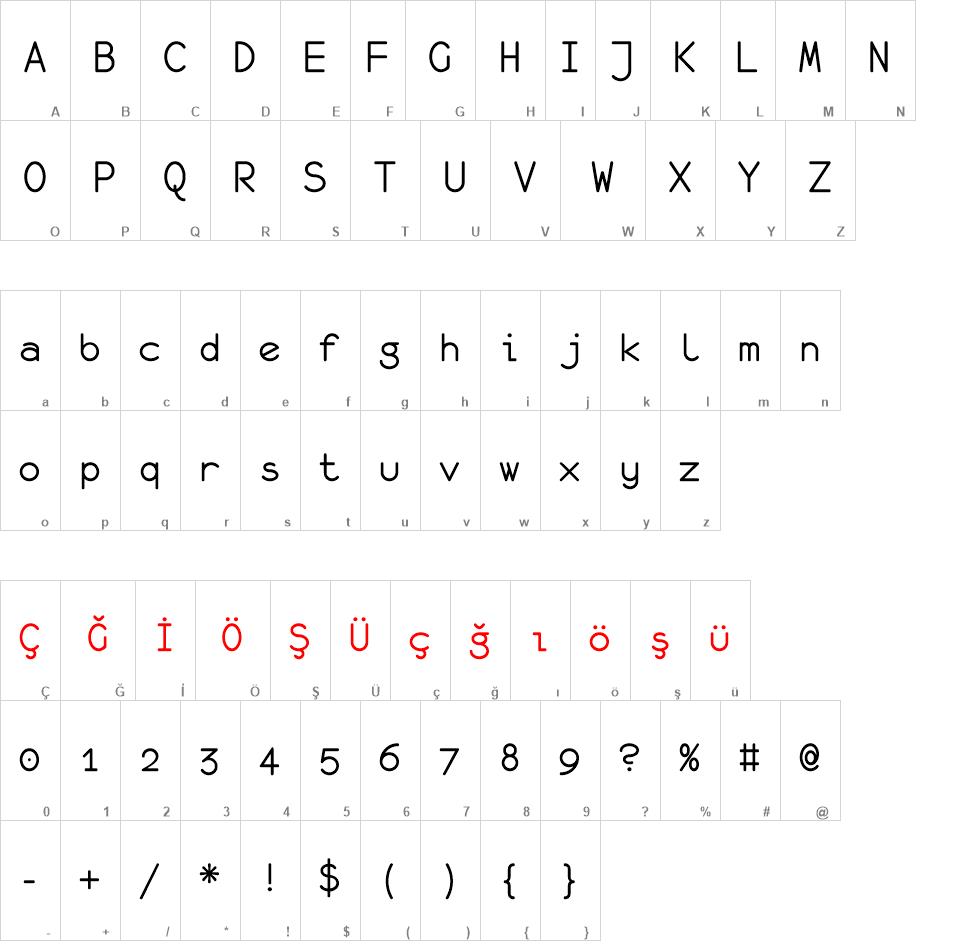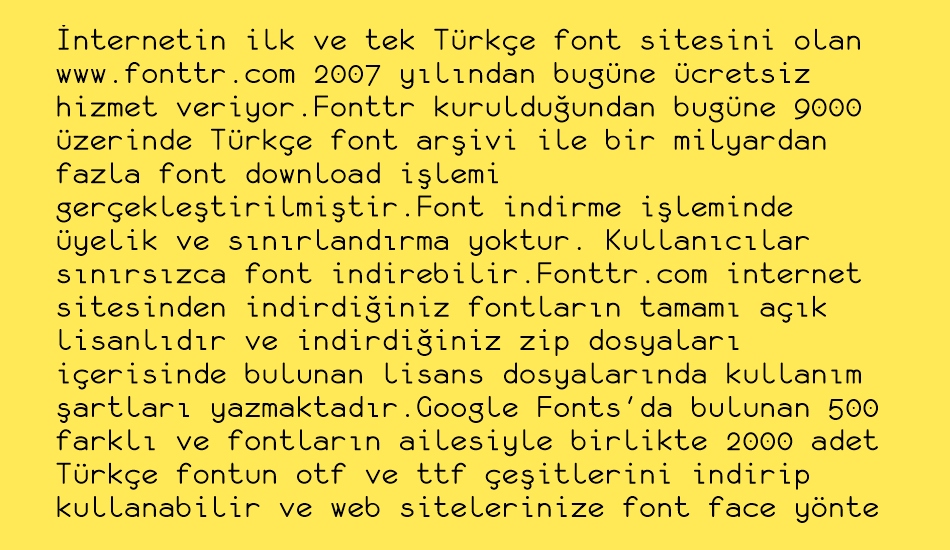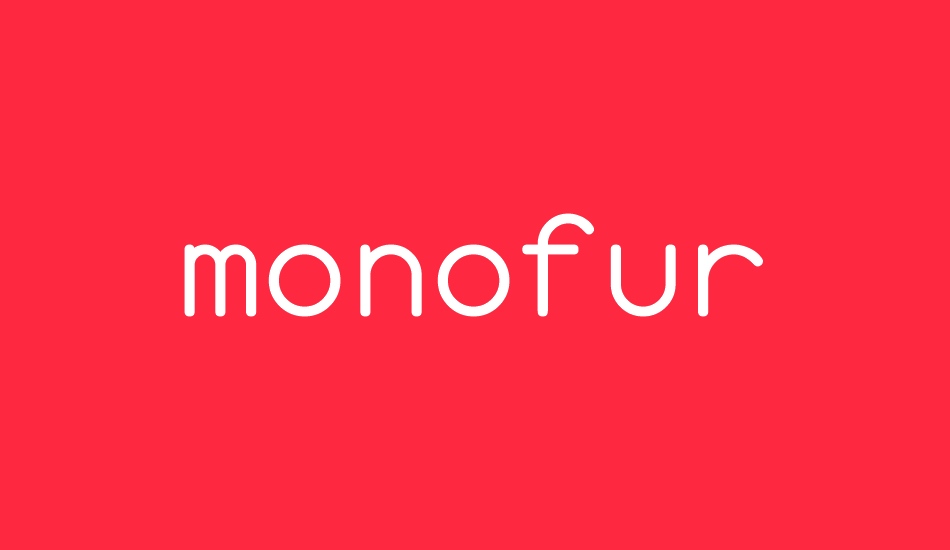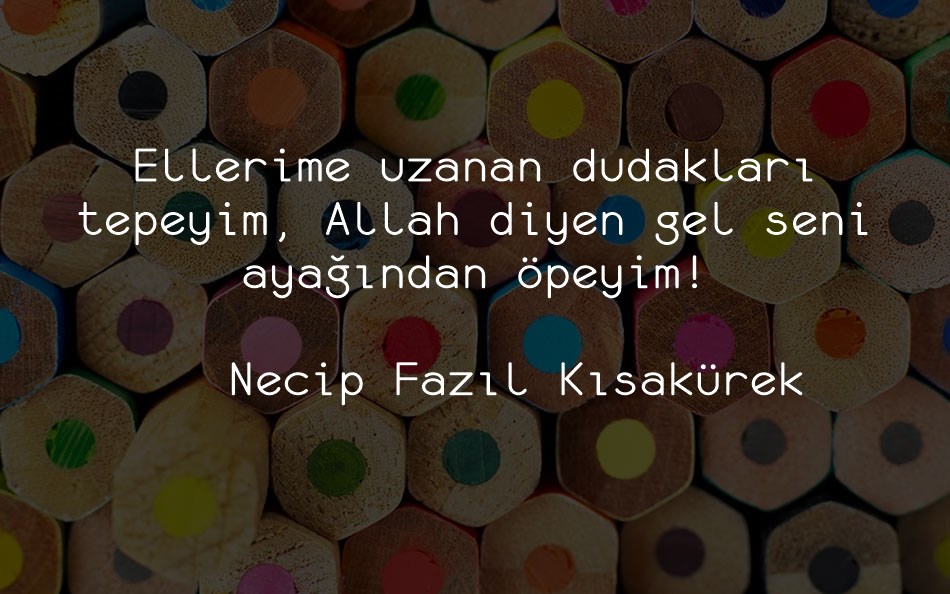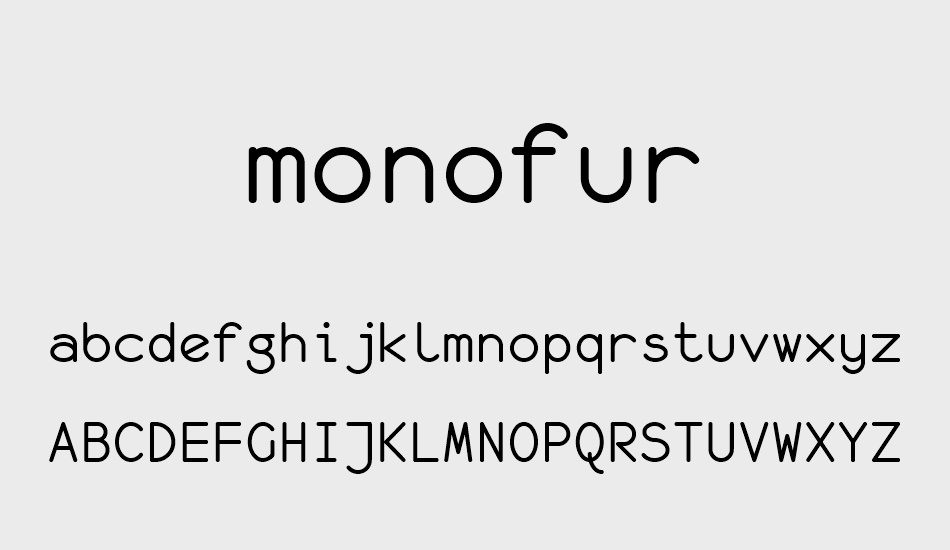
monofur font
The monofur typeface by tobias b koehler (unci@tigerden.com)
This is a monospaced geometric rounded sans serif font based on the
eurofurence typeface family.
The character set includes Roman, Greek and Cyrillic characters as well